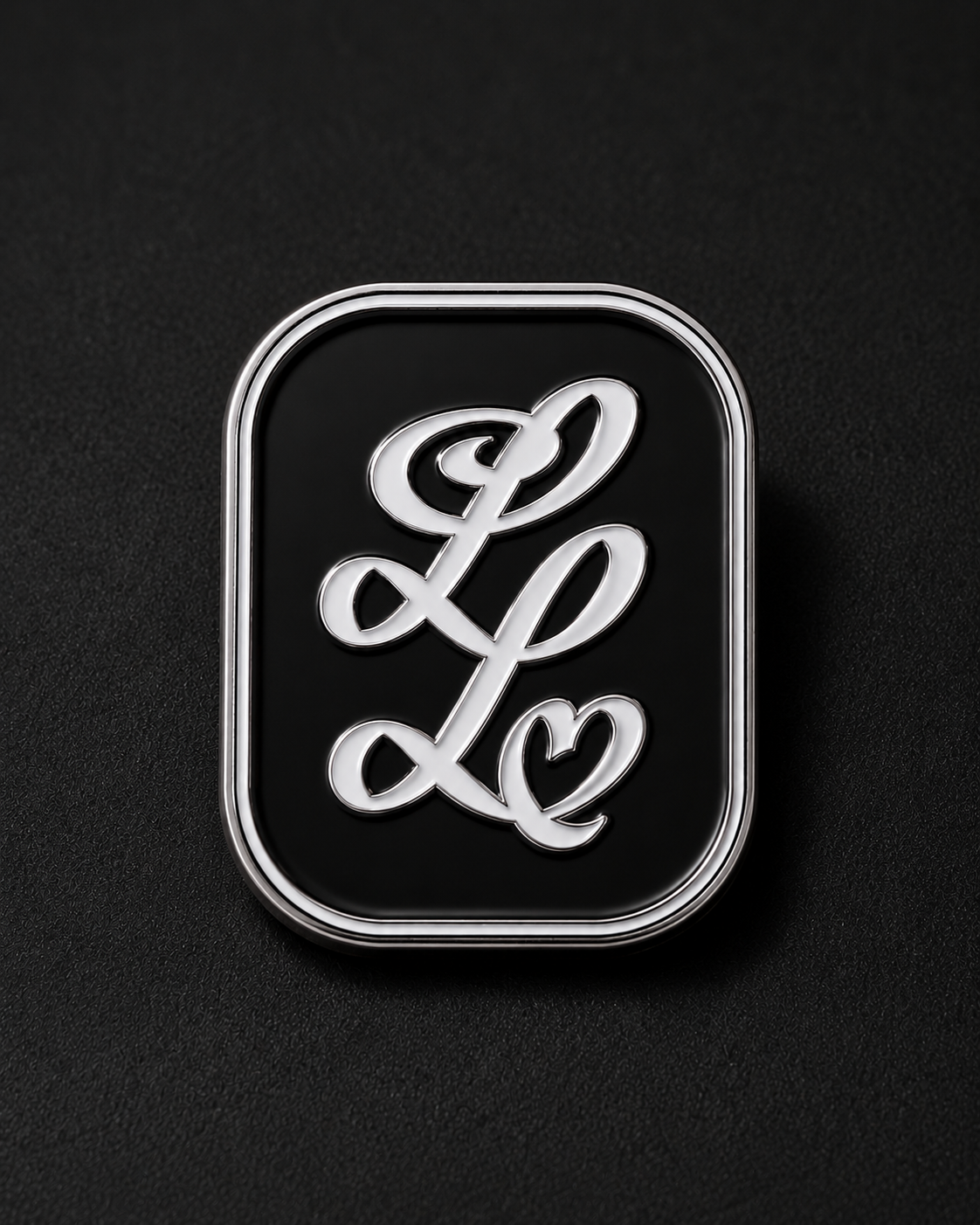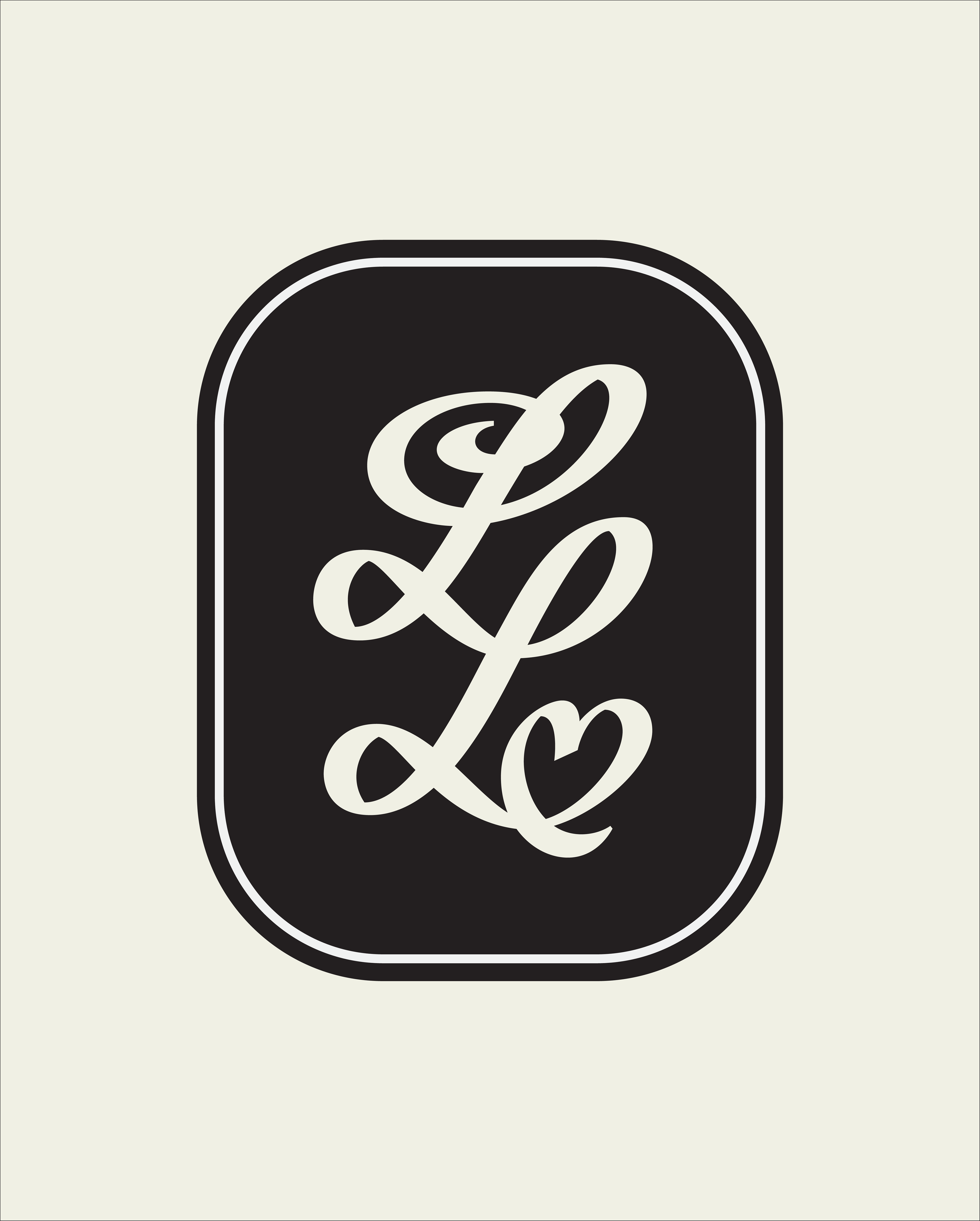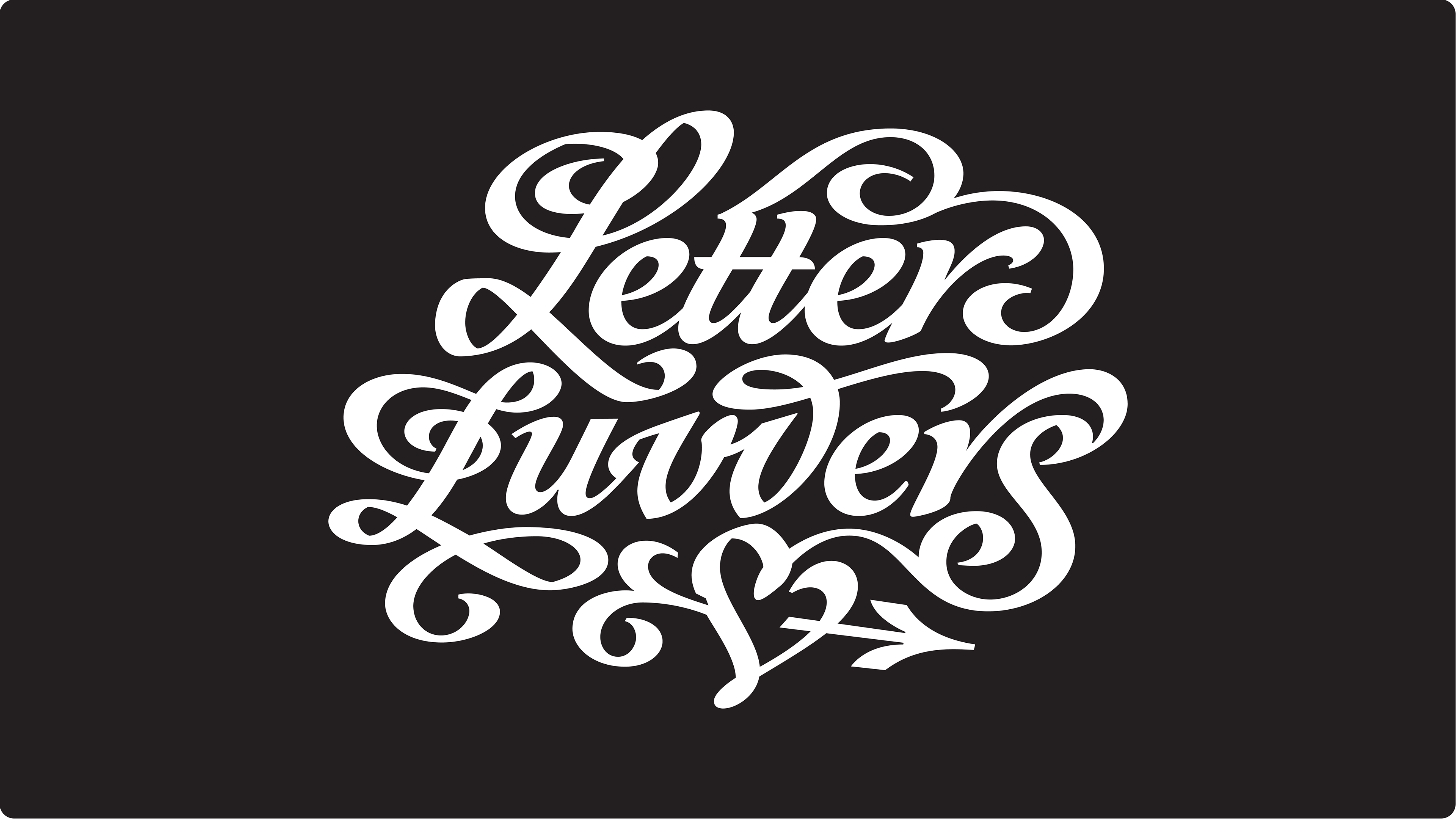
There’s something fitting about bringing together people who love lettering and type in one of Bristol’s oldest pubs. The Stag and Hounds pub in Bristol, with its dark wooden panelling, worn-in character and centuries of history within its walls is a setting that already has all the makings of a secret society. So I wanted the identity to have that feeling; a little mysterious, a little old-school, and with the sense that you’ve stumbled across something you weren’t supposed to know about. Although at Letter Luvvers everyone’s invited.